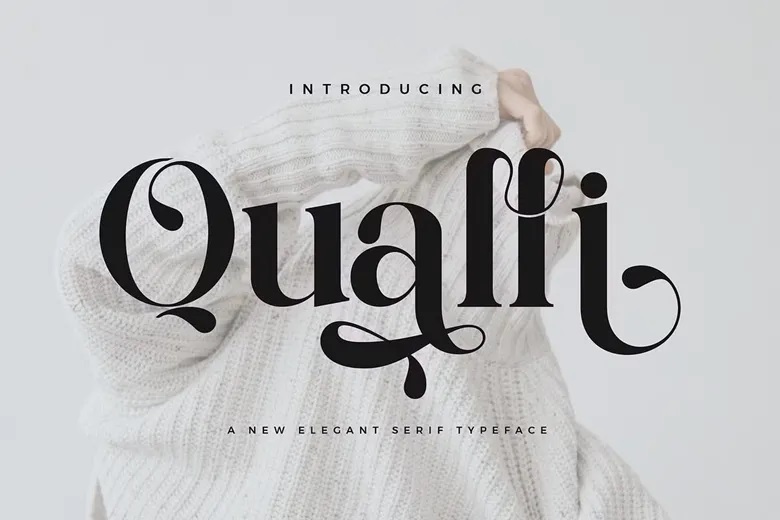
Qualli Font
Qualli is a bold and elegant serif font. Its versatile style works well for wedding invitations, stationery art, social media posts, and many other creative projects.
Qualli Serif Font